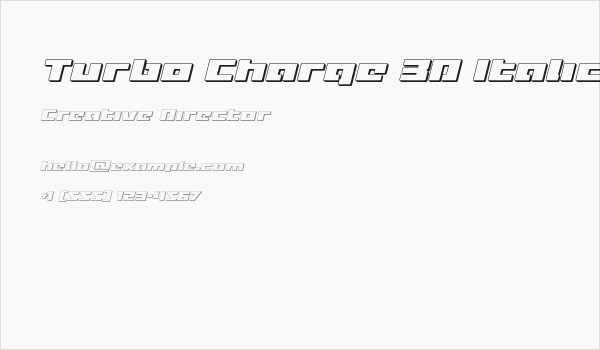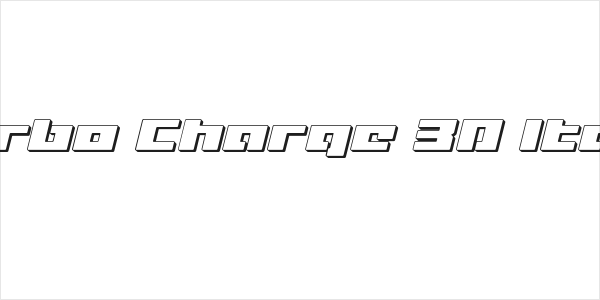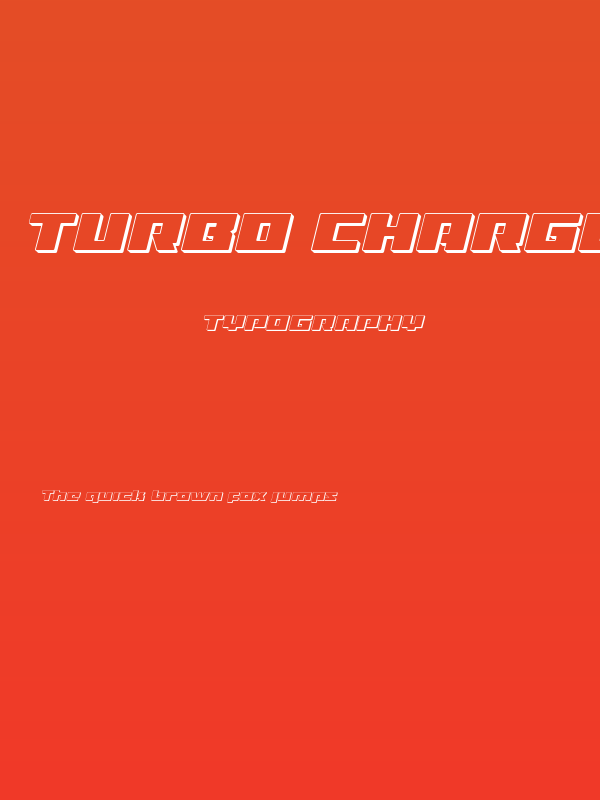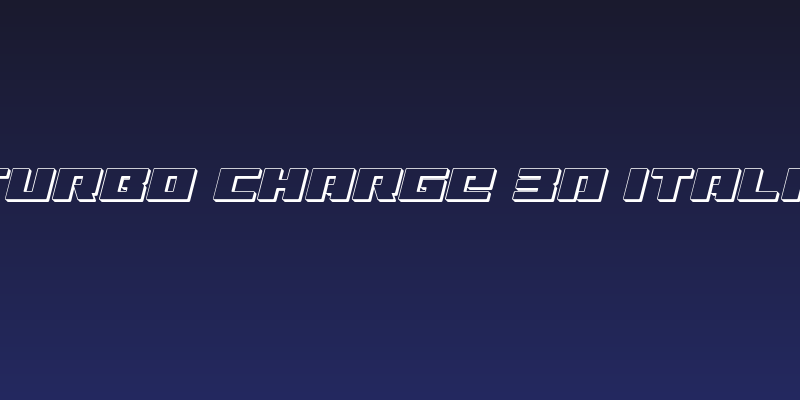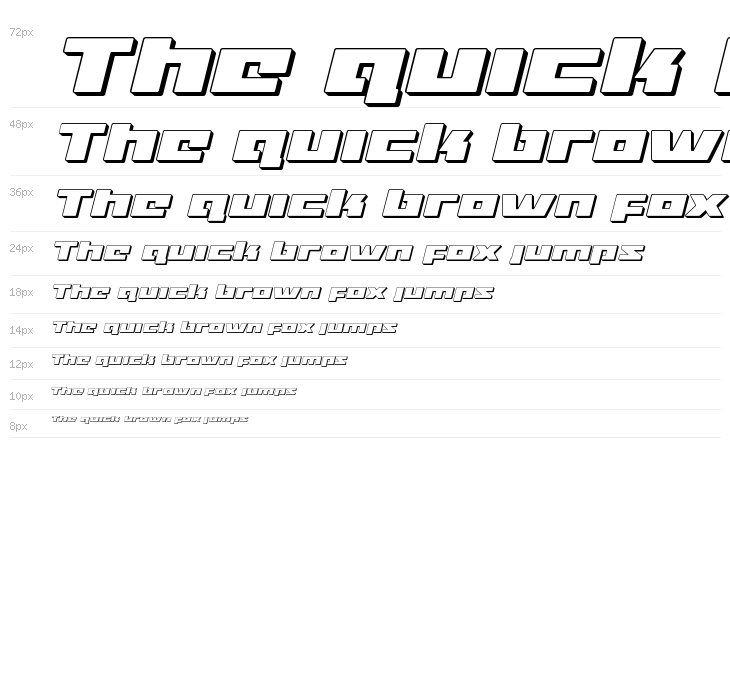
Turbo Charge 3D Italic Font
Turbo Charge 3D Italic Description
This font features a bold, three-dimensional design with an italic slant, giving it a dynamic and futuristic appearance. The characters are outlined with a thick black border, enhancing the 3D effect and making each letter stand out prominently. The geometric shapes and angular lines contribute to a modern, tech-inspired aesthetic. The uppercase and lowercase letters maintain a consistent style, while the numerals and special characters are designed to complement the overall look. This font is ideal for projects that require a strong visual impact and a contemporary feel.
| Proposed Projects | Ideal for video game titles, tech branding, futuristic posters, and sci-fi themed designs. |